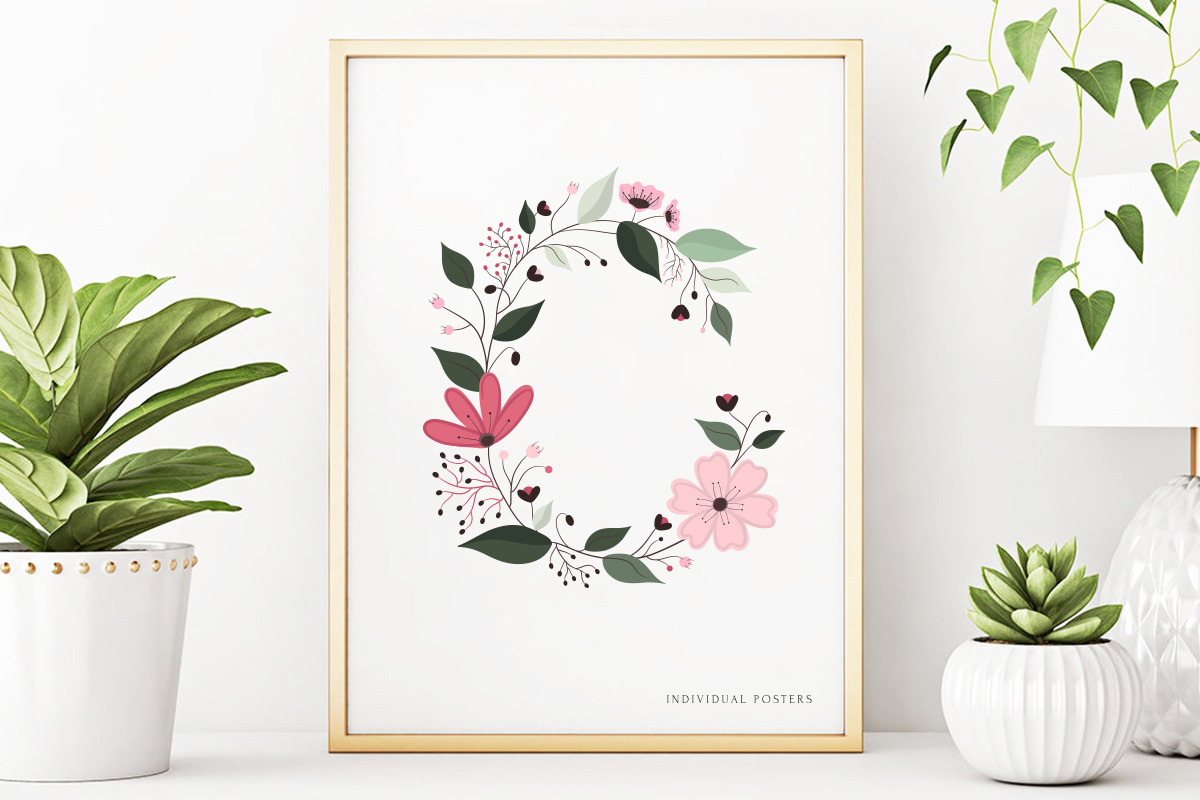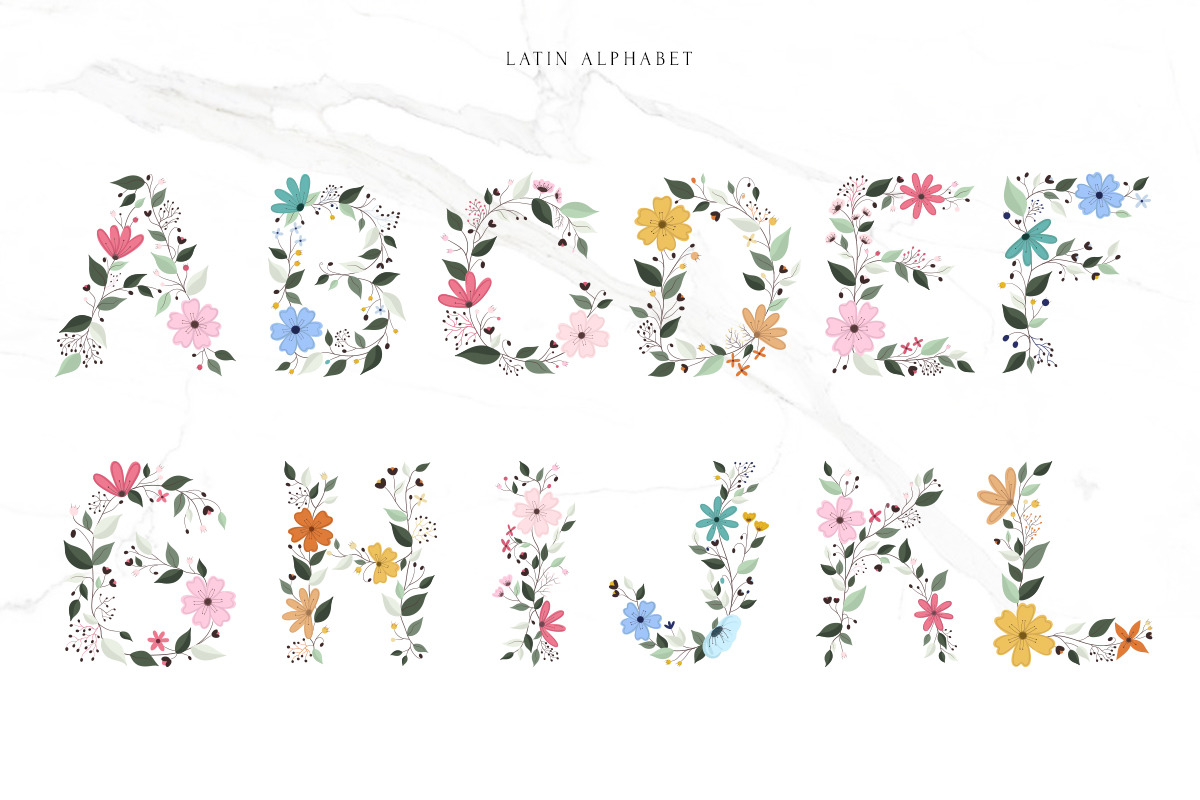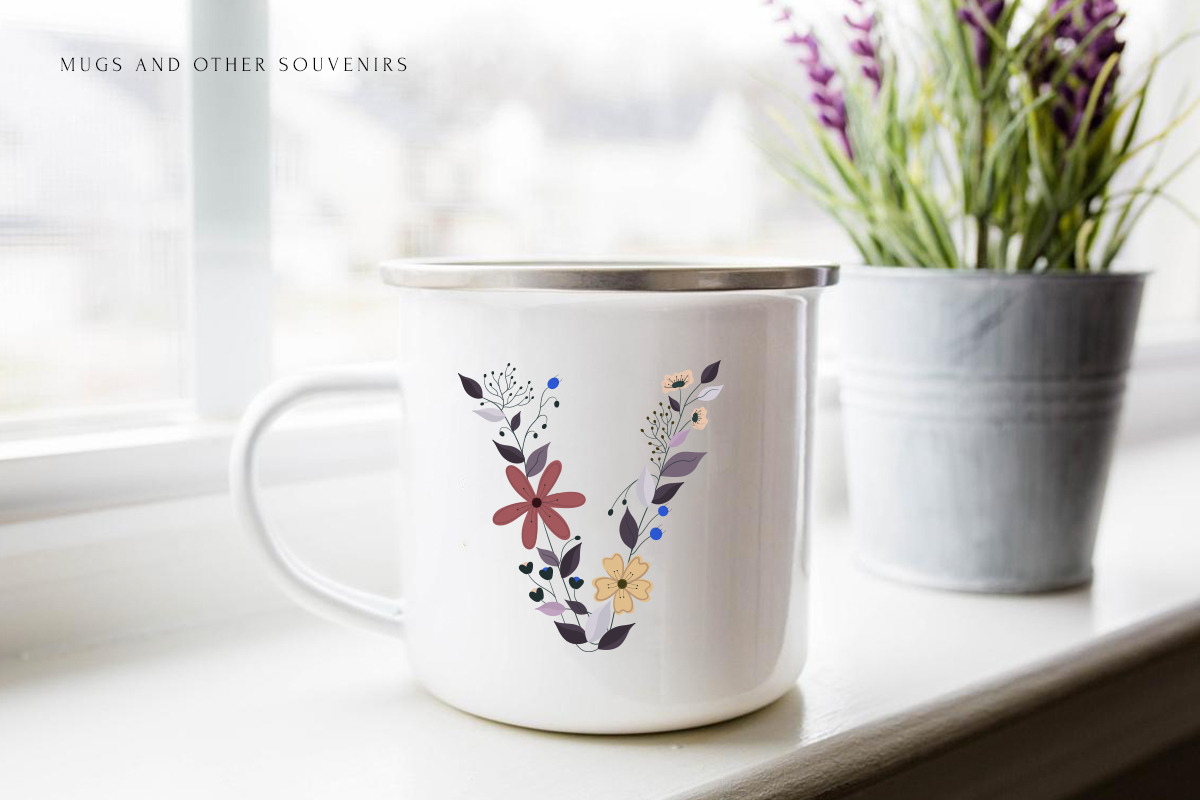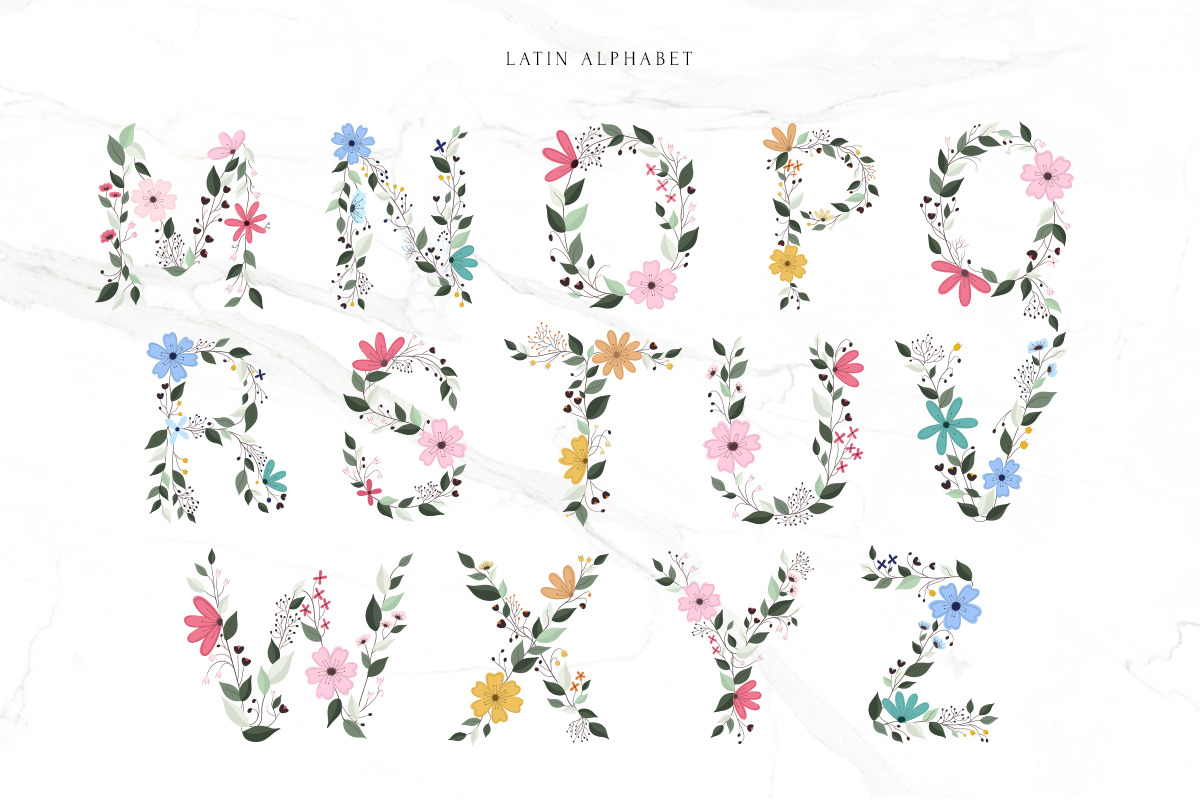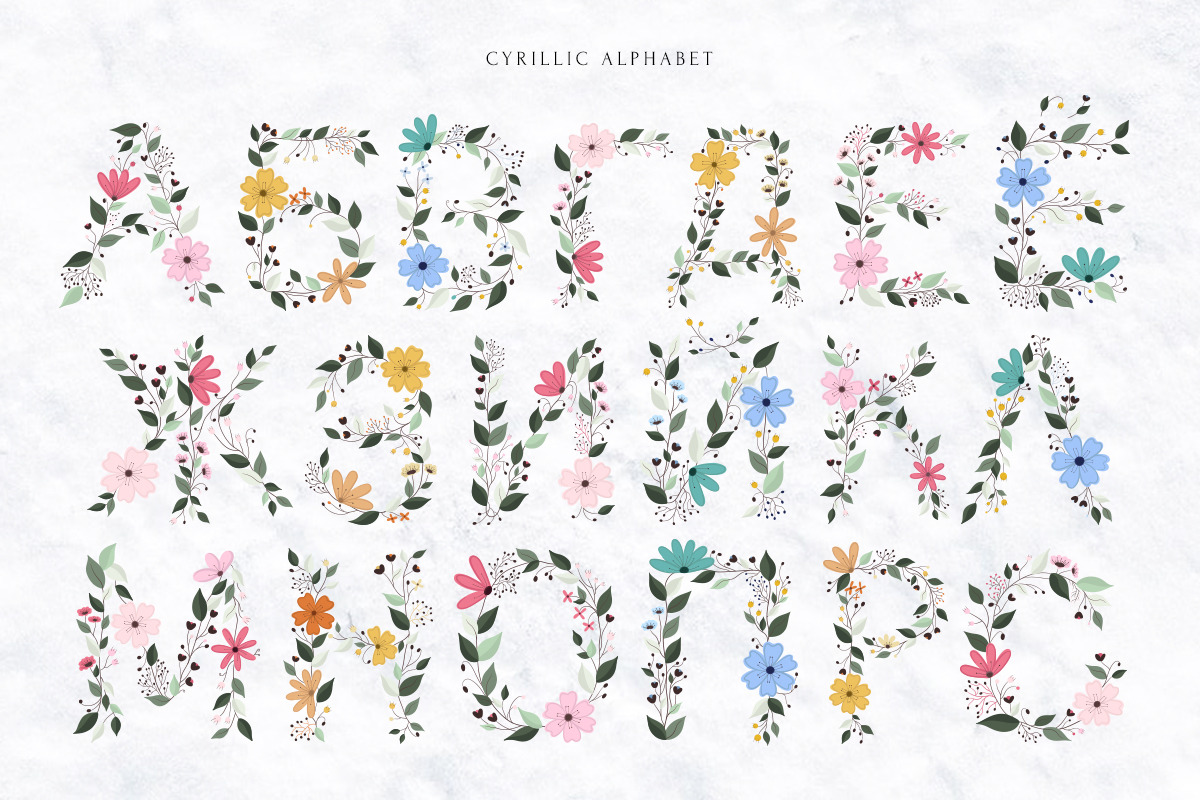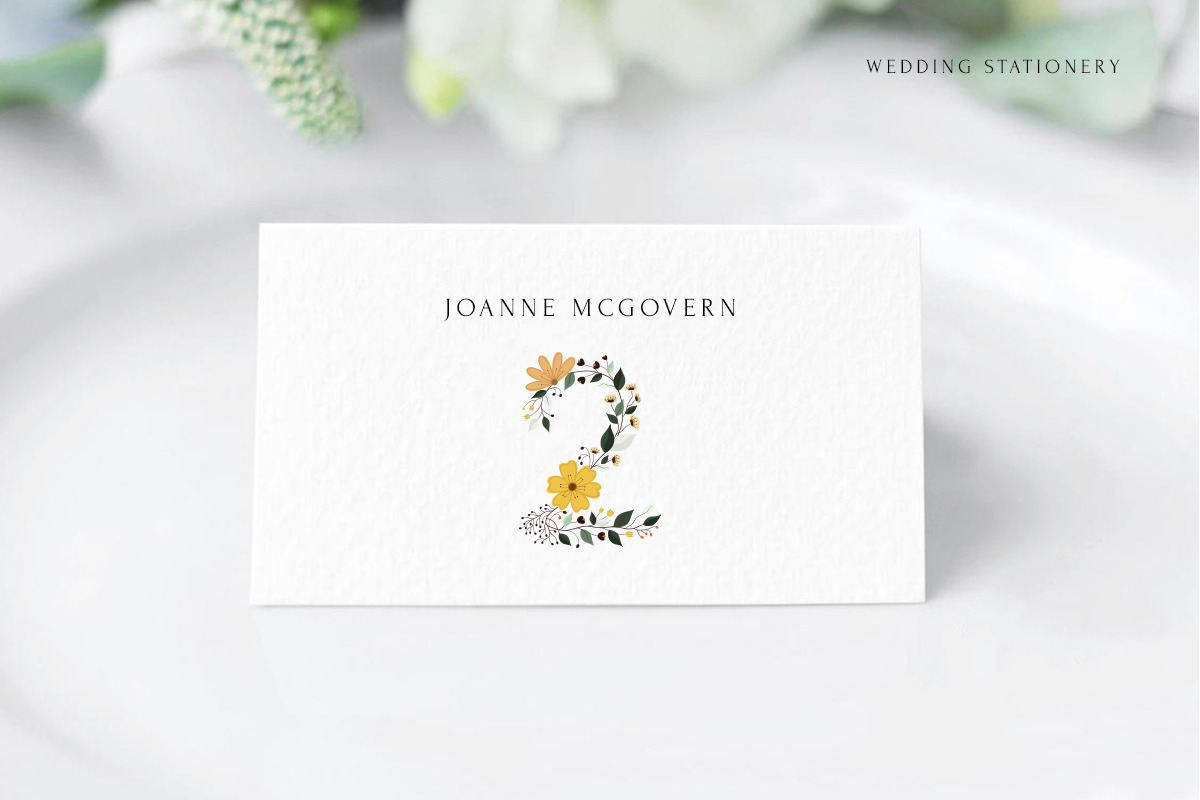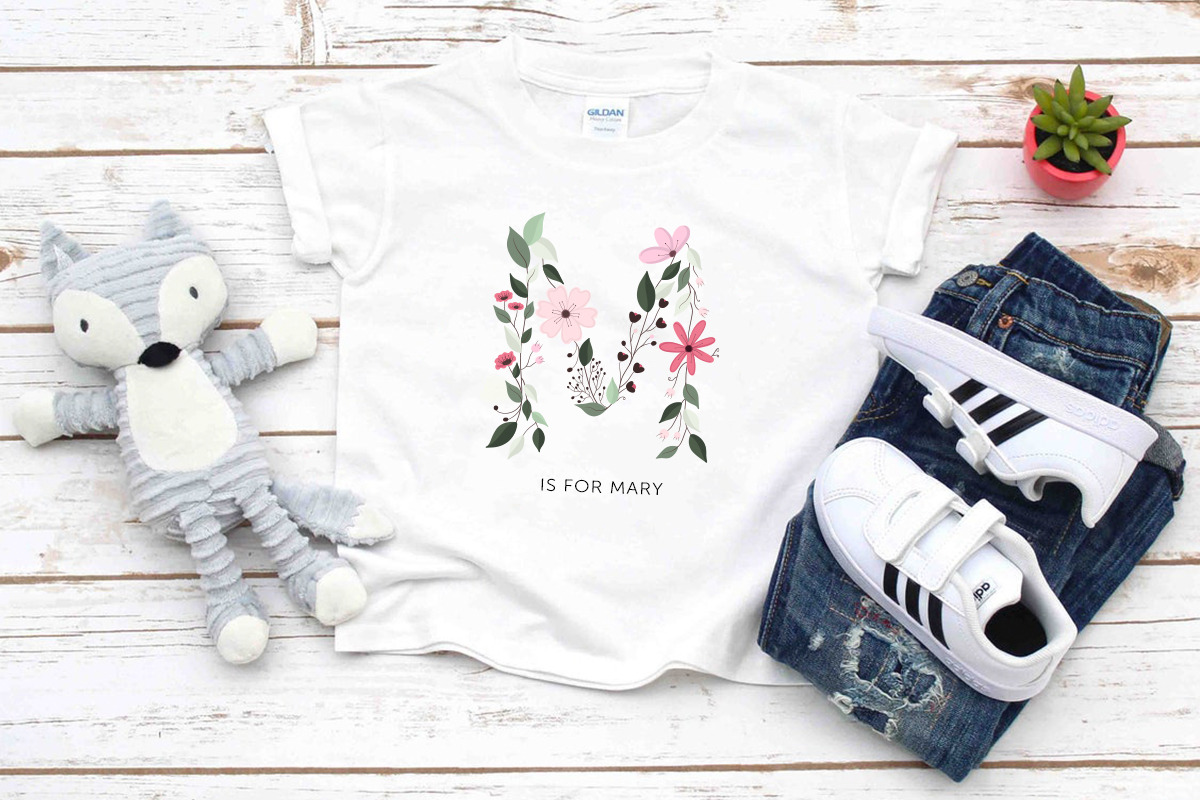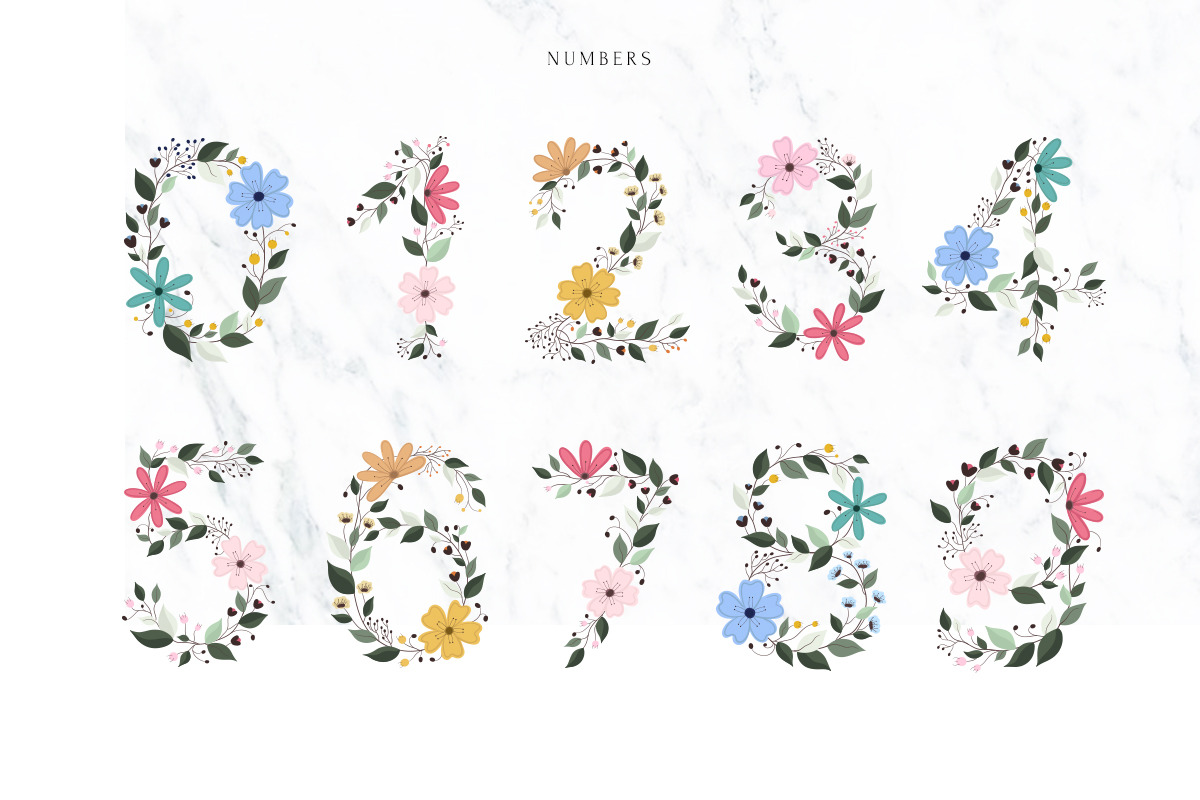
Awesome Blossom alphabet
Hi there and welcome to my Awesome Blossom project!
I suppose it was the largest and long-term font project, especially because of the Cyrillic alphabet characters. So here are a colourful floral illustrations of Latin and Cyrillic letters and numbers. Also the pack includes some icons, patterns and borders to support the style of your design. The files format is .AI/.EPS which is suitable for Adobe Illustrator and gives you an possibility to recolour elements and each flower from the character.
Blossom features:
Perfect for decor, printing, colour books, posters, event cards and more...